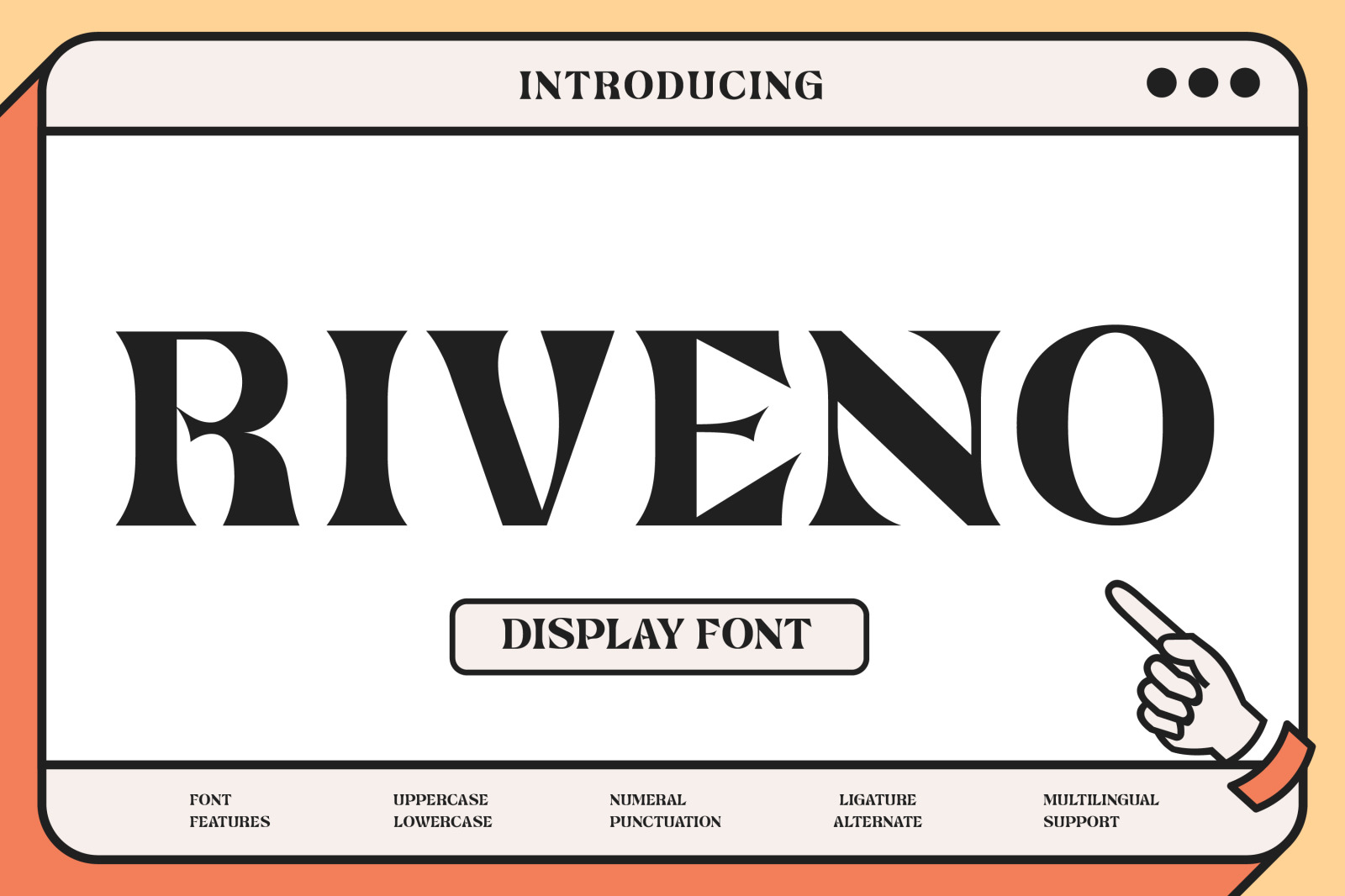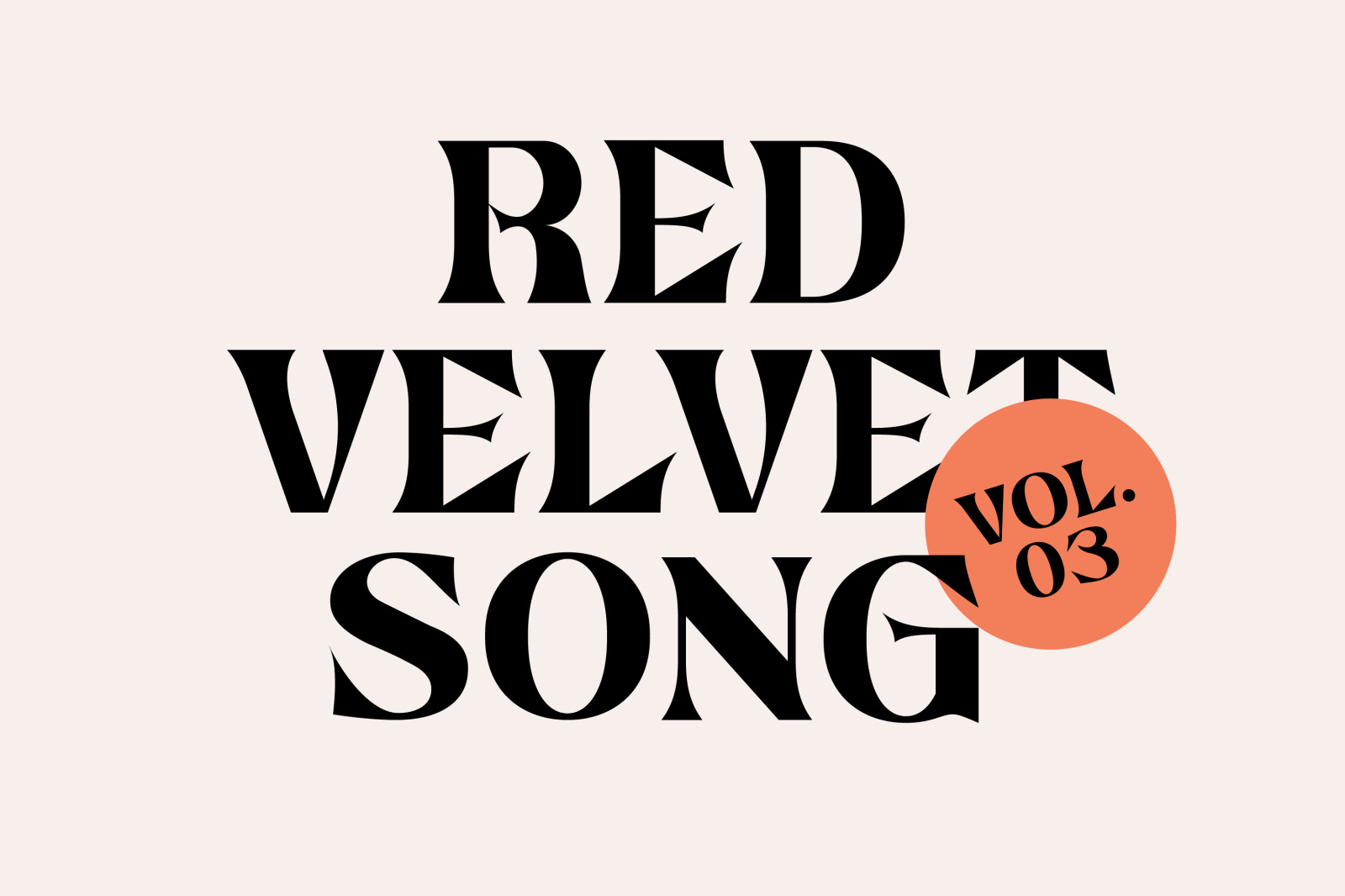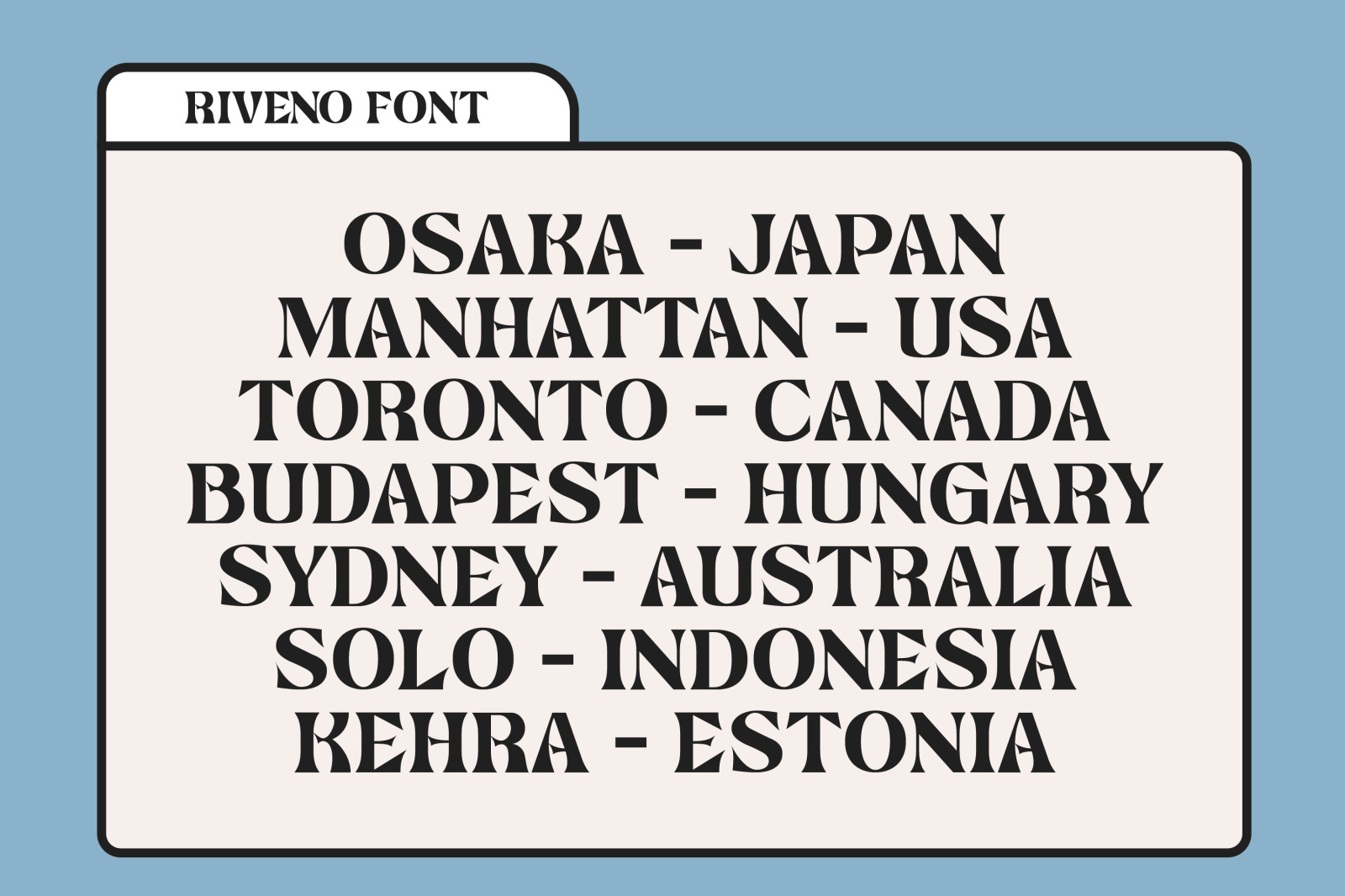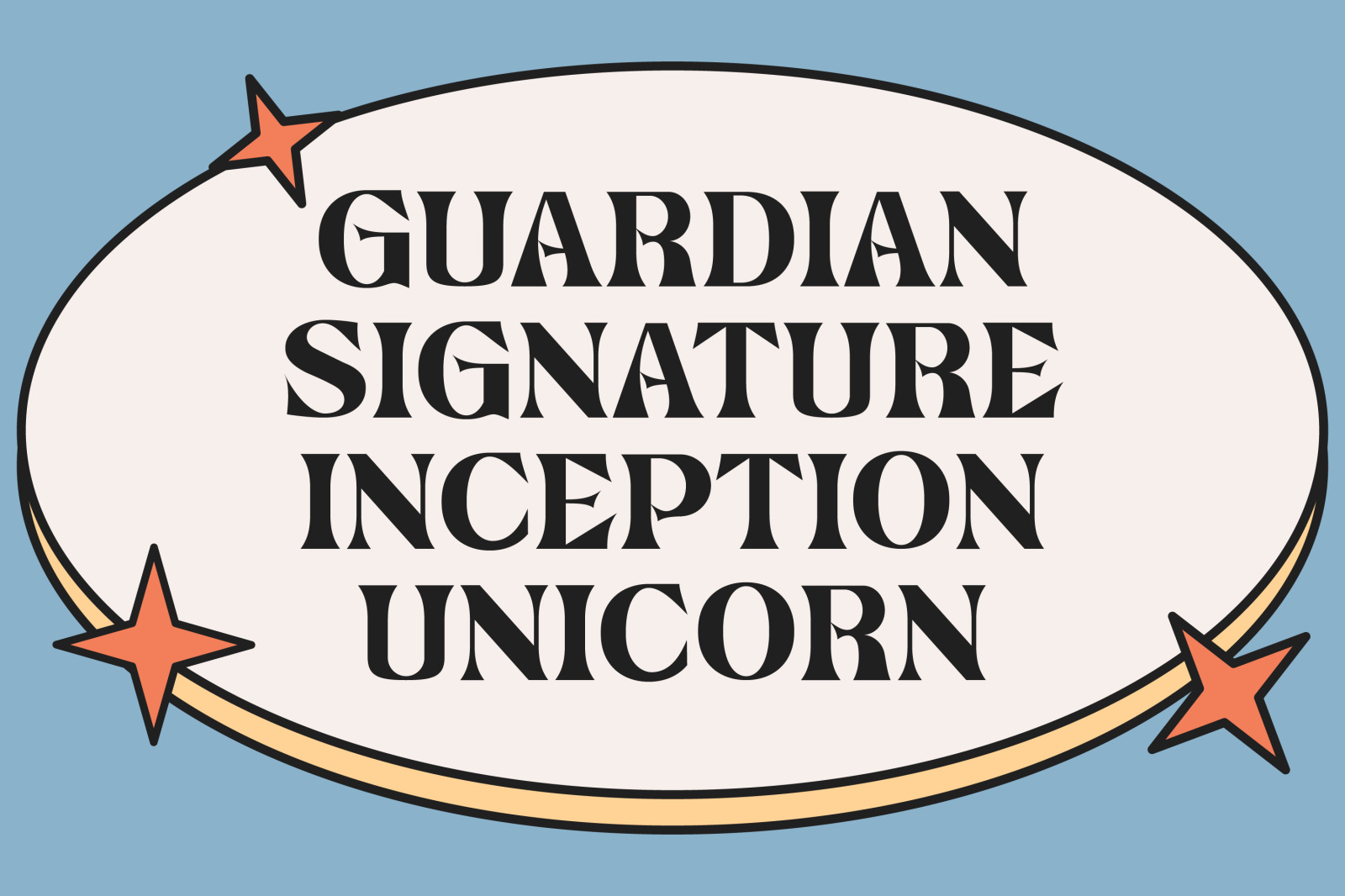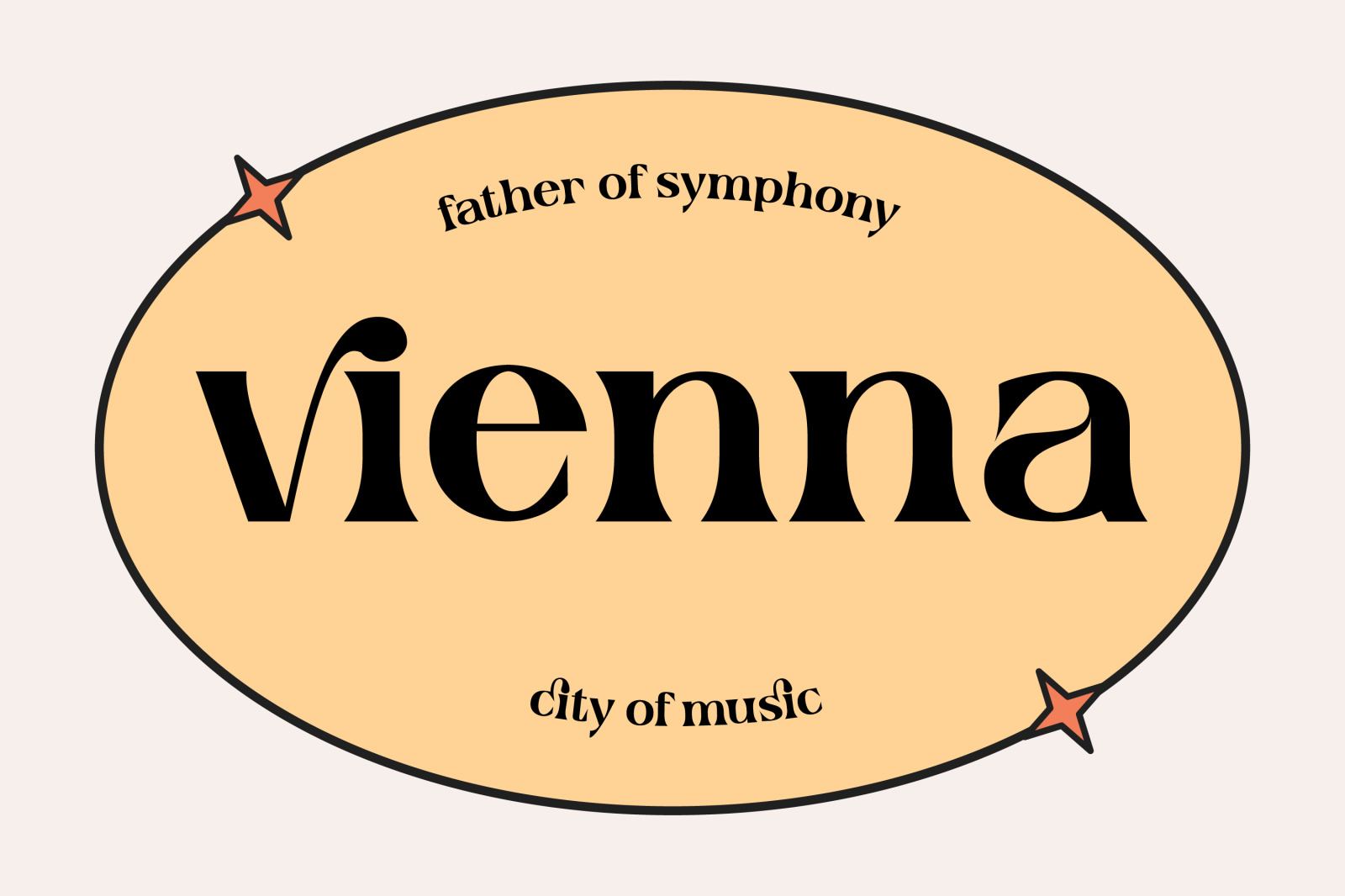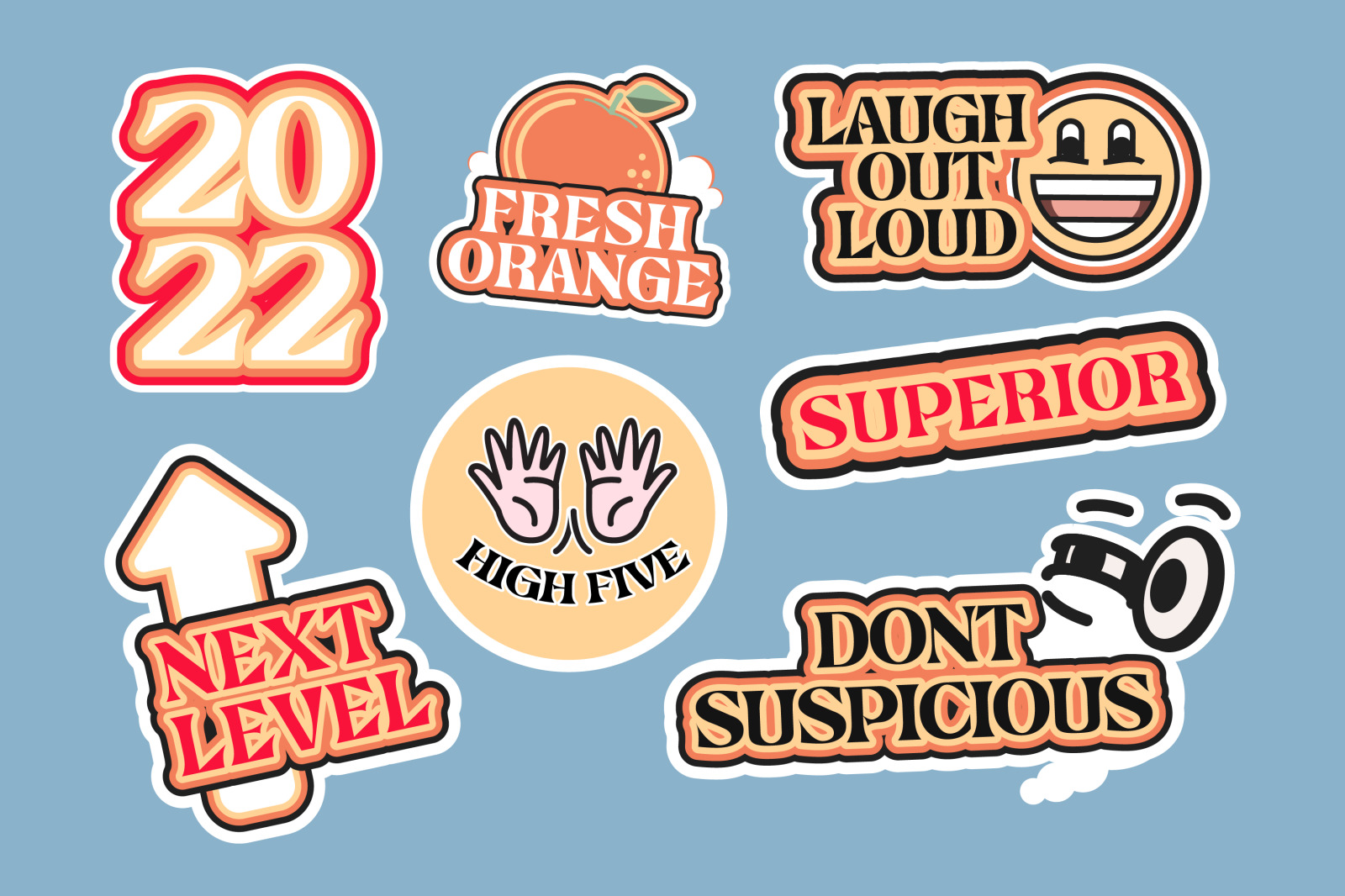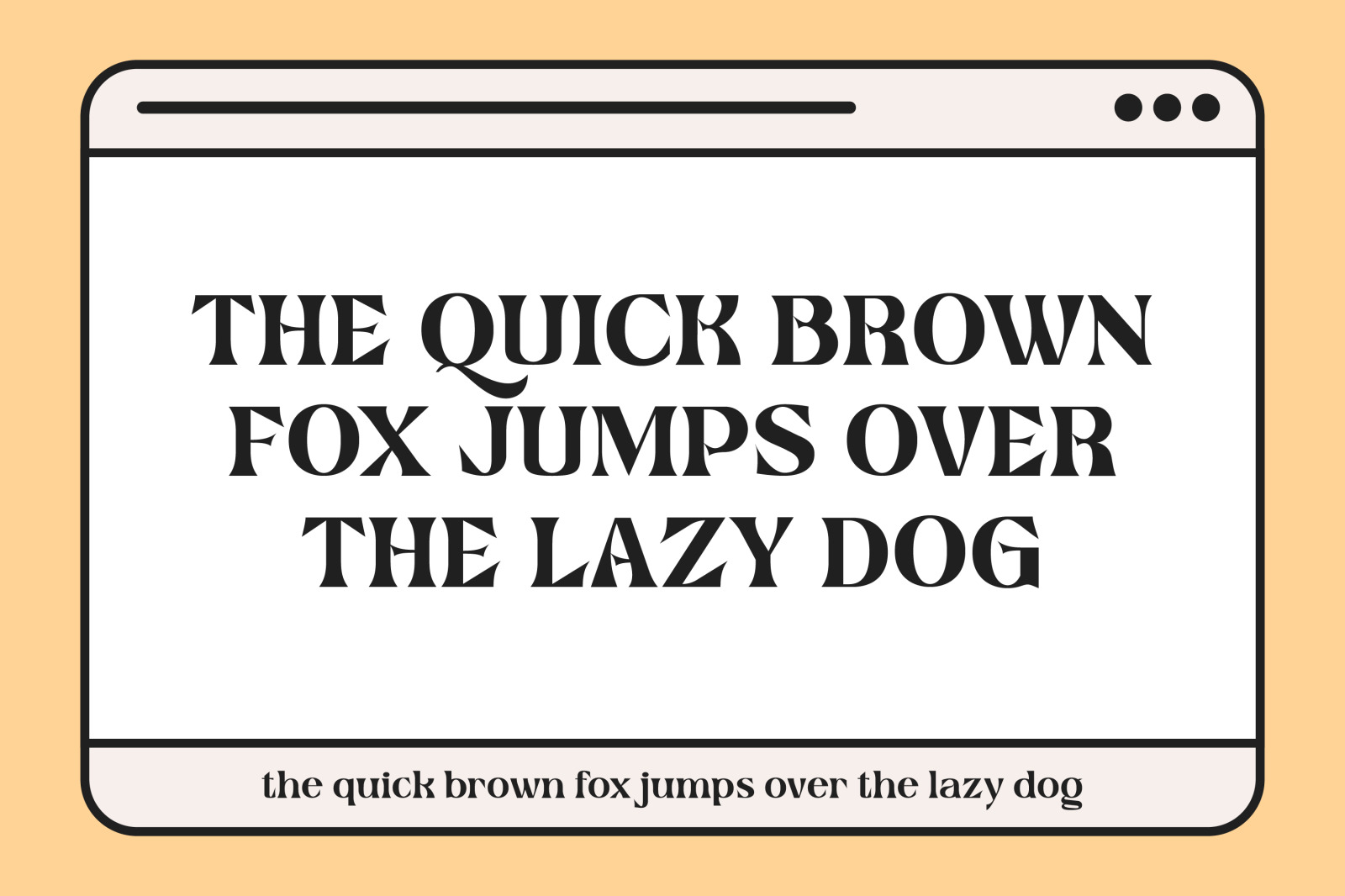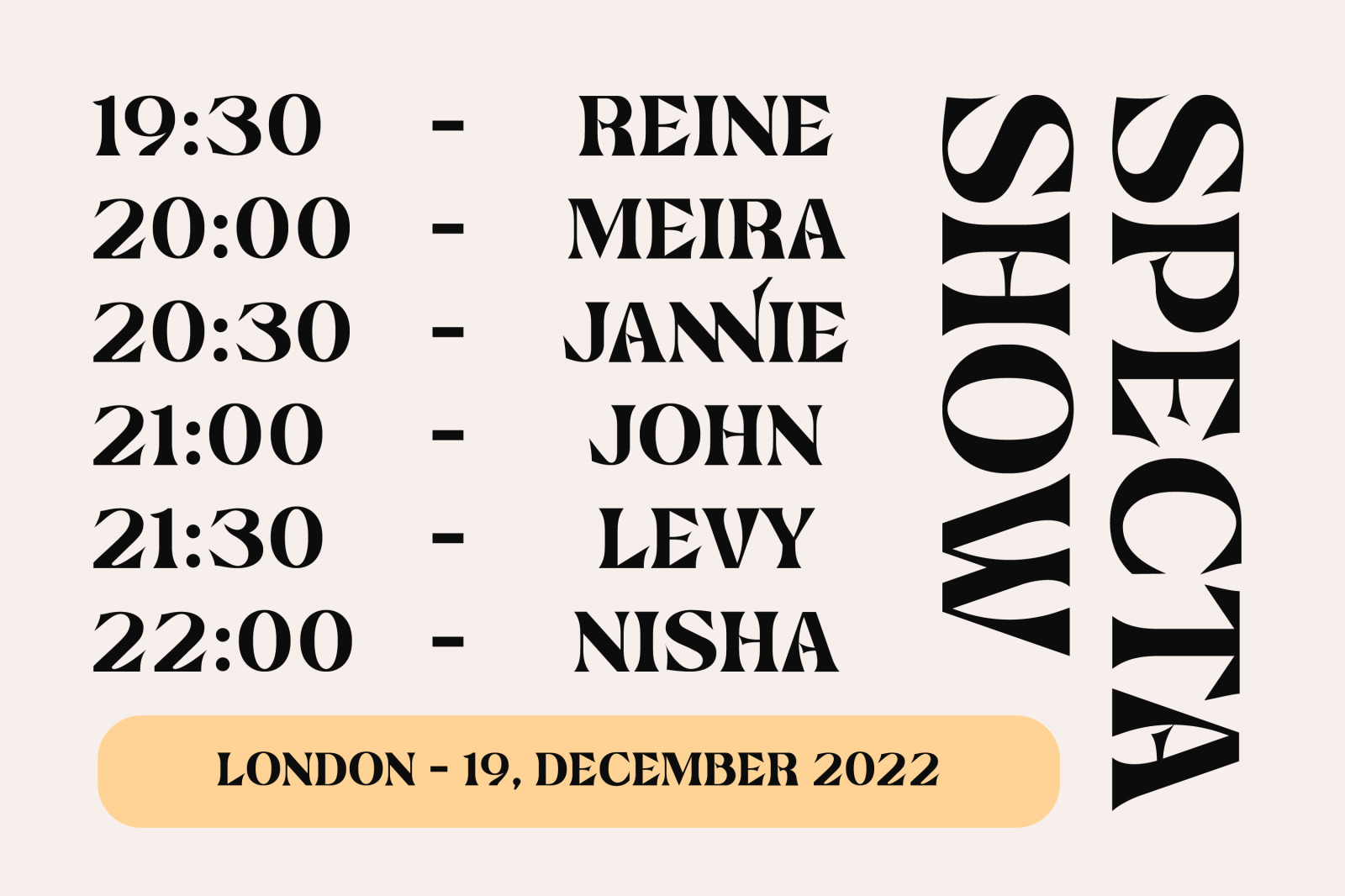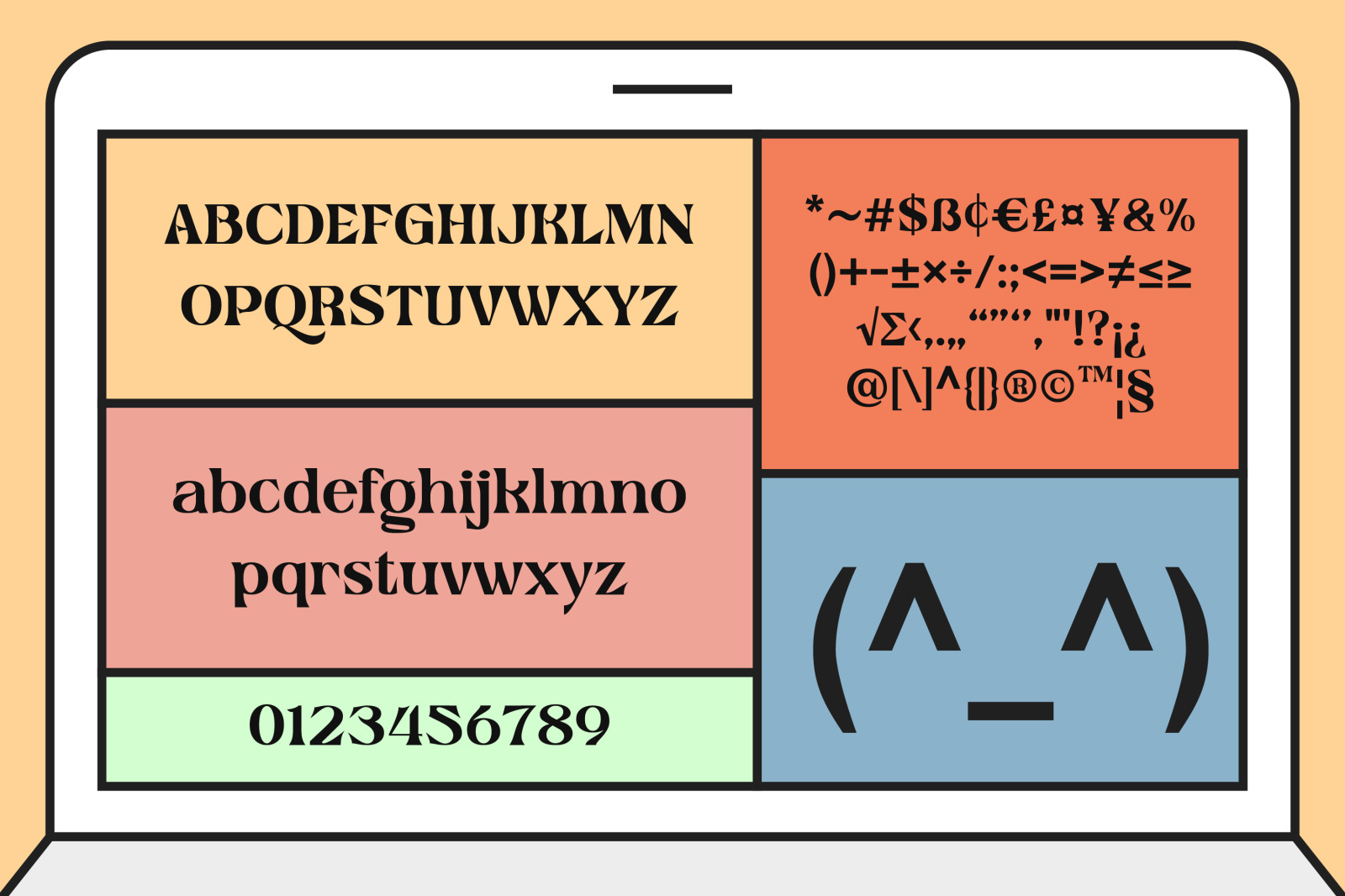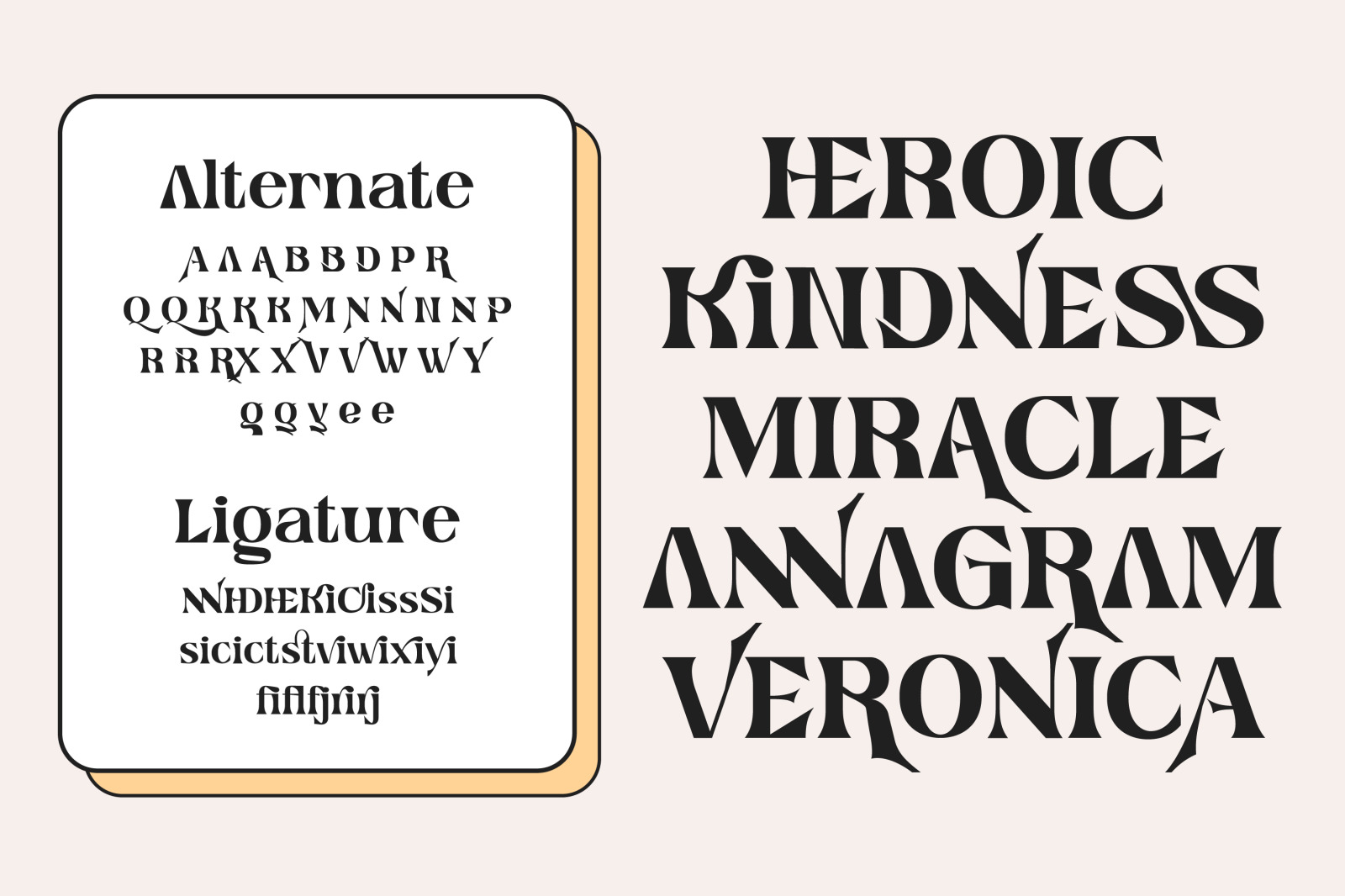
Riveno - Display Font
Riveno is a display font with sharp edge. This font can be used in a various of designs such as headlines, cover, poster, logo and more.
- Alternative Style and Ligature
- Uppercase and Lowercase Letters
- Numeral
- Punctuation and Symbols
- Multilingual Supports